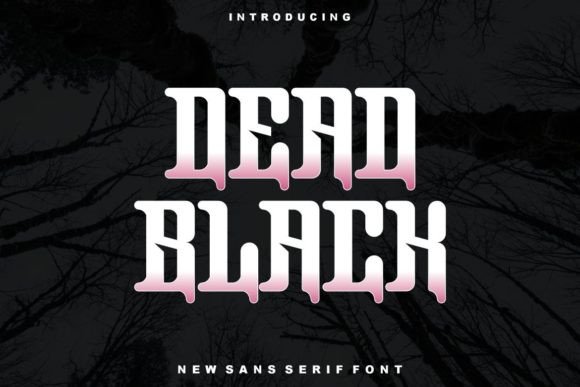
Journey into the realm of dark elegance with Dead Black Font, a striking blackletter font that exudes bold and authentic charm. Crafted by the skilled hands of kalingga.albert, Dead Black embodies the essence of typography, harmonizing classic style with modern appeal. It's a font that demands attention, leaving an imprint on any project it graces.
Indulge in the beauty of Dead Black's distinct letterforms, meticulously designed to capture the raw essence of old-world craftsmanship. Each stroke is drawn with precision, exuding a sense of power and sophistication. From logos and branding to t-shirt designs and export endeavors, Dead Black seamlessly adapts to a myriad of creative ventures.
Dive into the versatility of Dead Black, a font that thrives in diverse contexts. Its bold personality shines in large headlines, commanding attention and making a statement. Yet, it also possesses a delicate touch, lending an air of elegance to smaller text, ensuring clarity and readability. Dead Black's adaptability is a testament to its exceptional design, making it a font that effortlessly transitions from one project to the next.
Envision the impact of Dead Black on your designs. Picture the boldness of its strokes in a captivating logo, drawing eyes and igniting curiosity. Imagine your t-shirt designs adorned with Dead Black's intricate letterforms, turning ordinary apparel into wearable works of art. Unleash your creativity with Dead Black's versatility, and witness the transformation of your projects into captivating masterpieces.
Embrace the beauty of Dead Black, and let your artistic vision soar. With its bold presence and boundless adaptability, Dead Black is the ultimate choice for designers seeking to elevate their work to new heights. Step into the world of Dead Black Font today, and embark on a journey of creativity and self-expression.